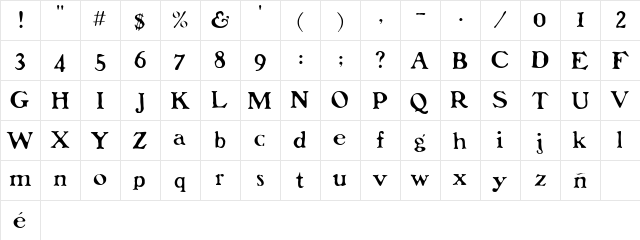
PachmanSSK Regular
Design Context for PachmanSSK Typeface
PachmanSSK takes a measured approach to typography — its balanced proportions and neutral character make it a reliable workhorse for both digital and print work.